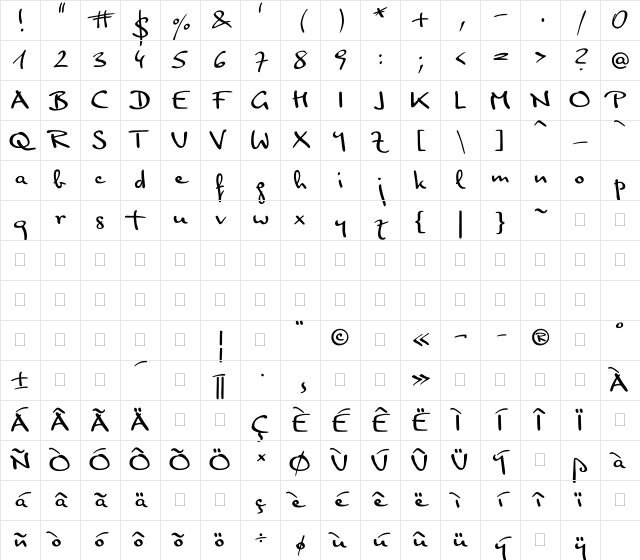
PT Script Monsoon Regular
Designer: Stuff designers of ParaType
Design Context for PT Script Monsoon
PT Script Monsoon flows with the natural rhythm of handwritten lettering, making it ideal for designs that call for warmth and personal expression.
Font Pairing: Combine PT Script Monsoon with a simple geometric sans for maximum contrast - the tension between flowing curves and clean structure is a classic typographic pairing.
Pro Tip: Use PT Script Monsoon for short runs of text - names, titles, or taglines. Extended body copy in script faces tires the eye quickly.